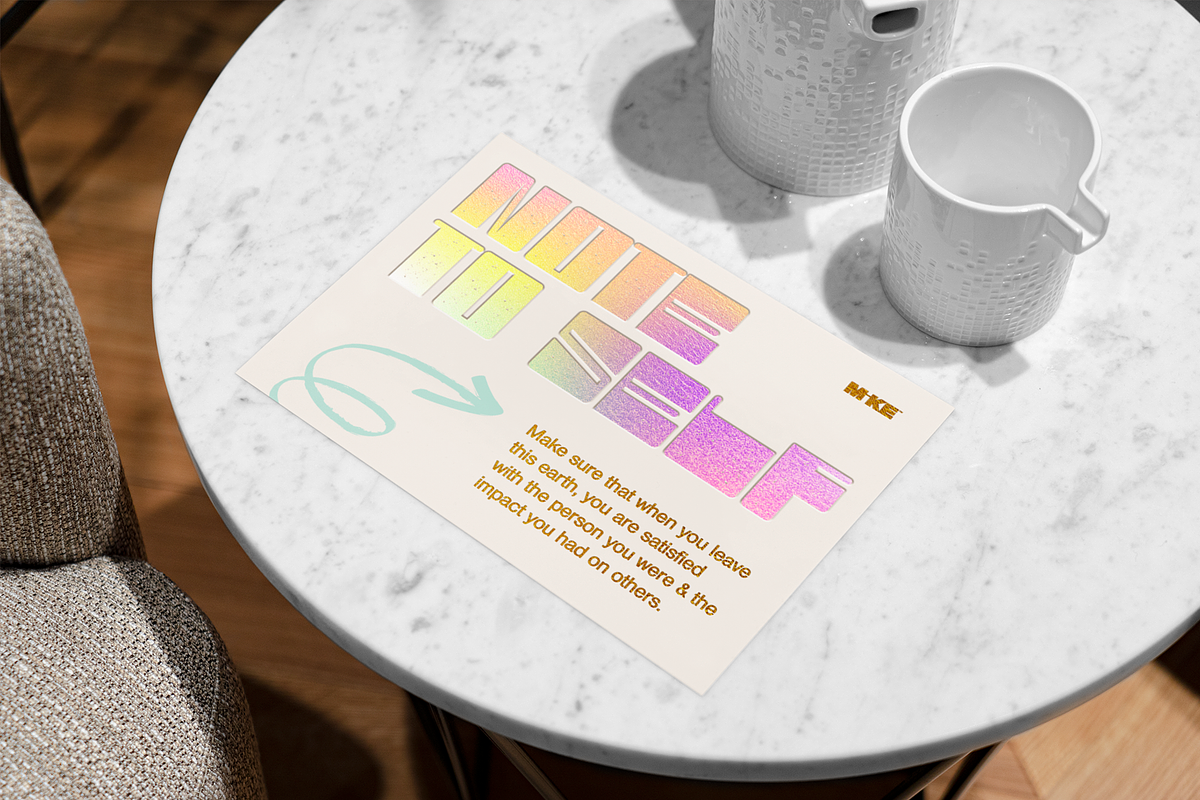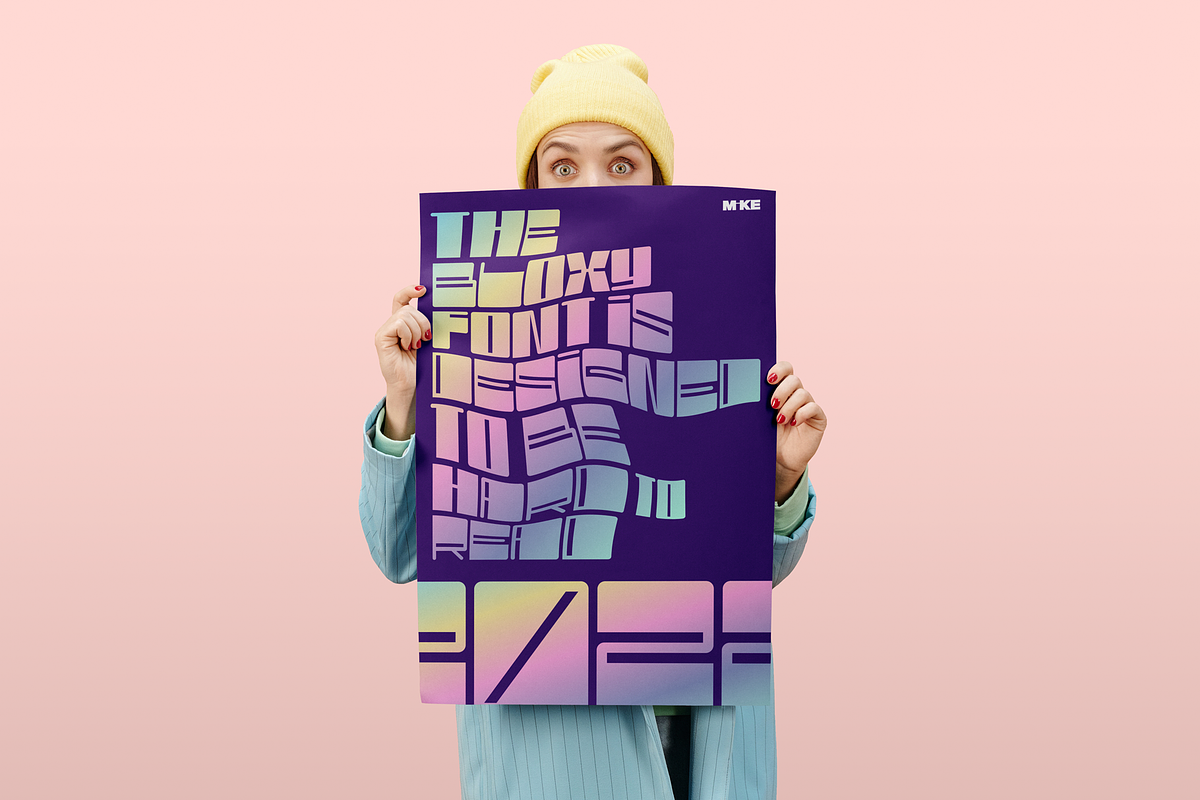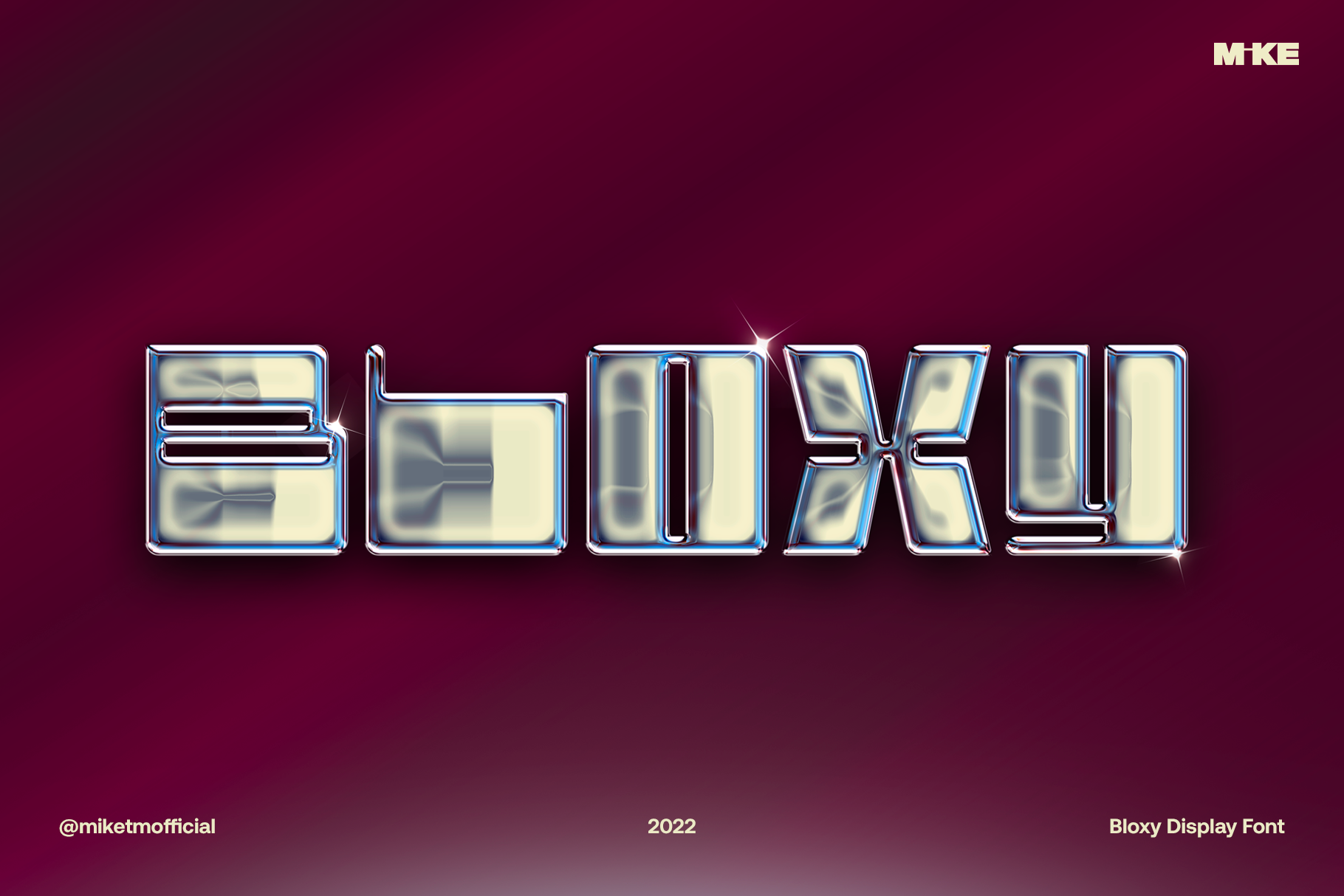
Bloxy Display Typeface
Bloxy is a fun, typeface designed to be a texture as much as it is to communicate a message. Coming in a standard form, shadow, and distressed, this is a font you can truly have fun with.